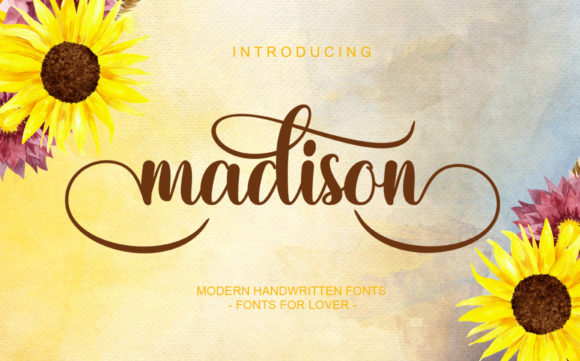
Madison Font
About Madison Font
Madison is a flowing handwritten font, described by an elegant touch, perfect for your favorite projects. Fall in love with its incredibly distinct and timeless style and use it to create spectacular designs!